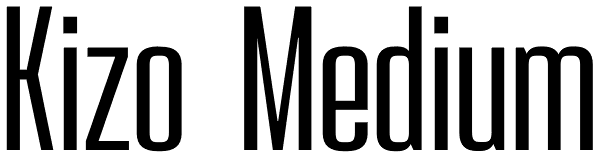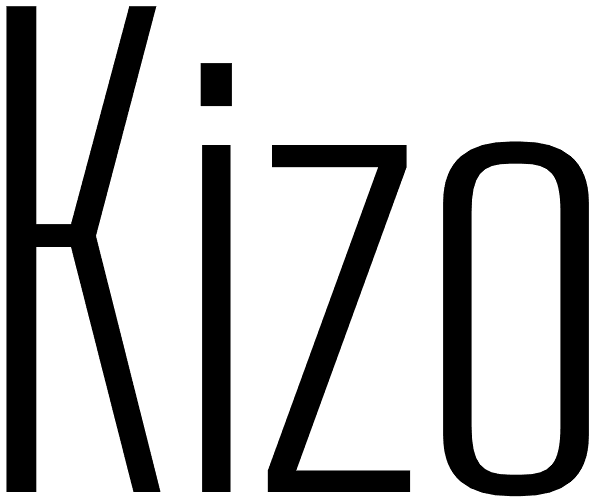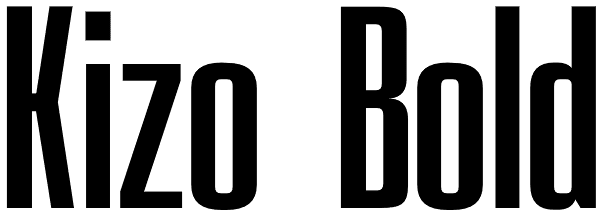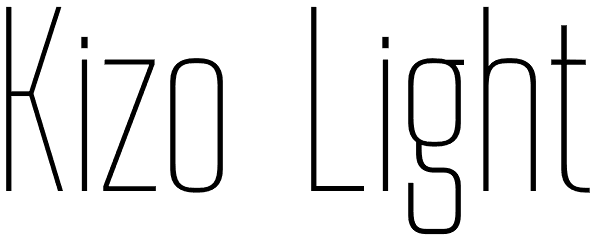
Kizo
Kizo is a geometric condensed sans serif typeface, designed by Mariya V. Pigoulevskaya in 2013. Inspired by the urban modernist architecture, the font is functional, rational, utilitarian and subtle in its nature. Created for text and display use...